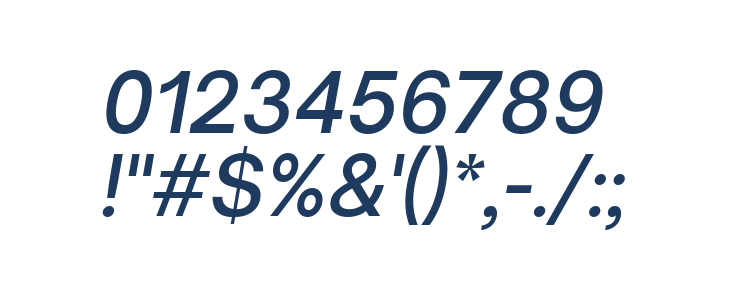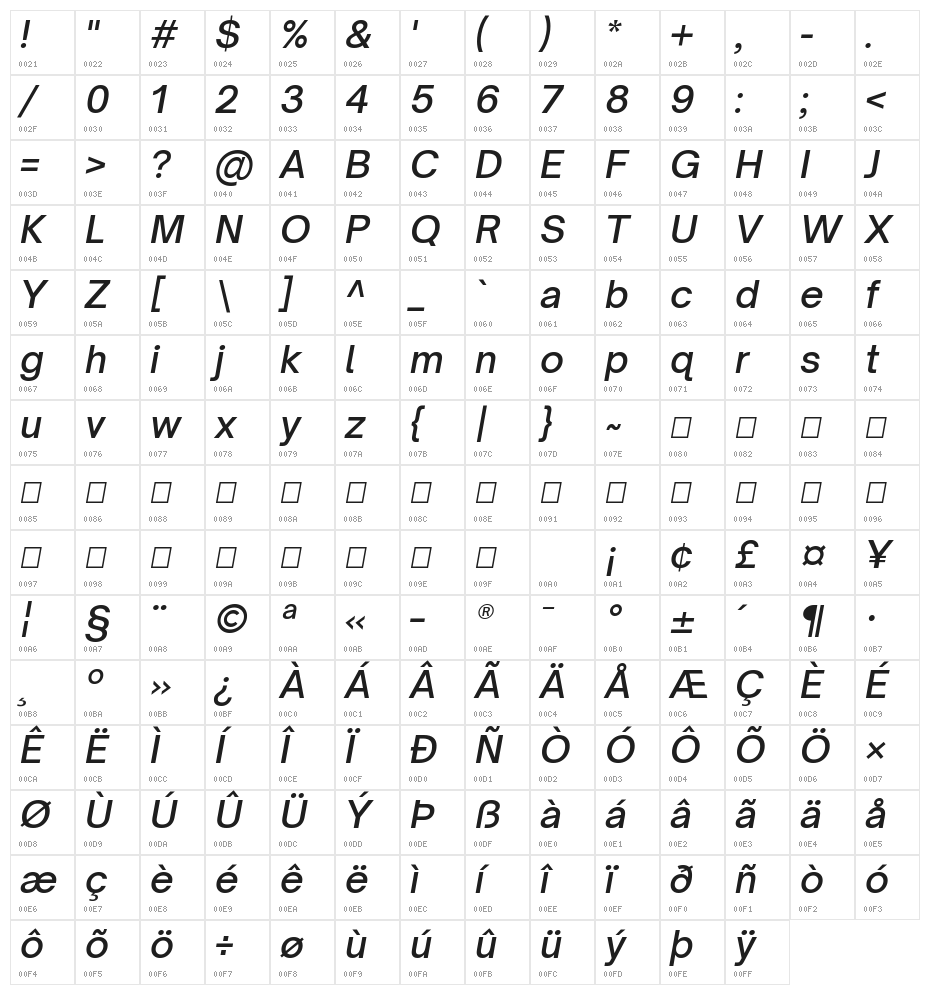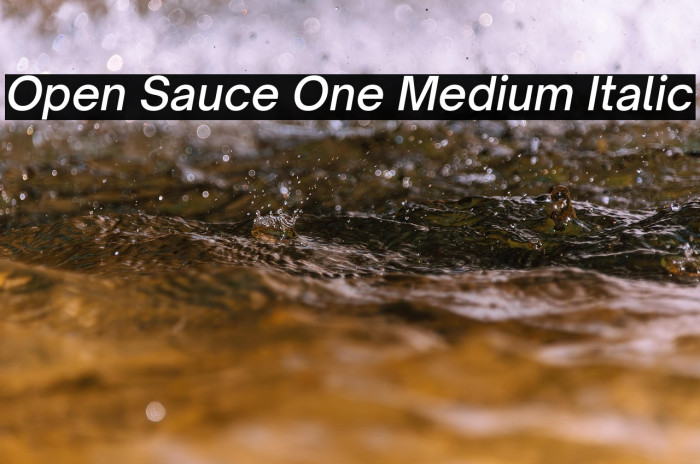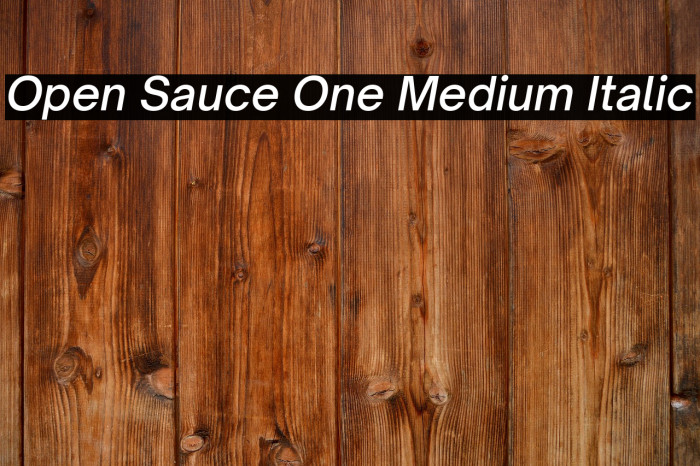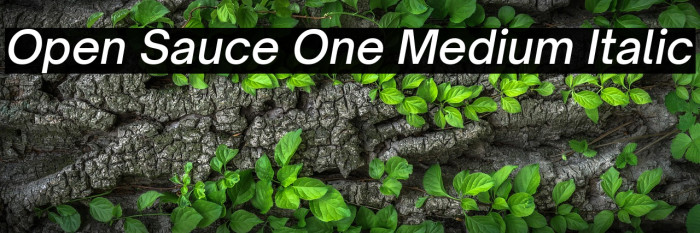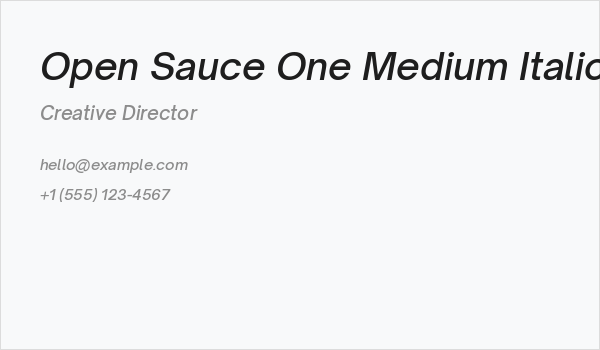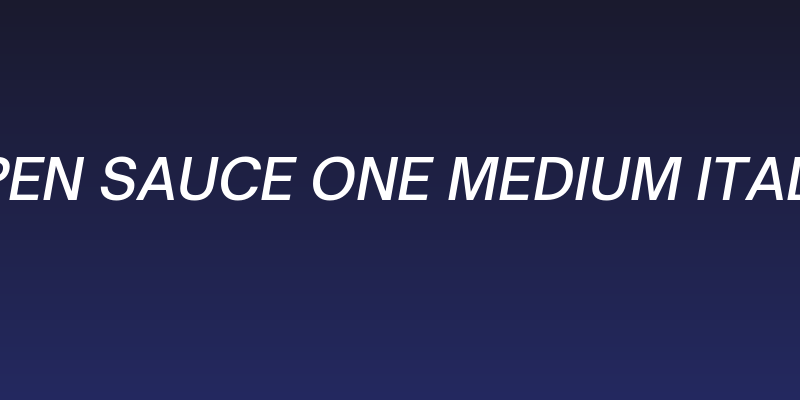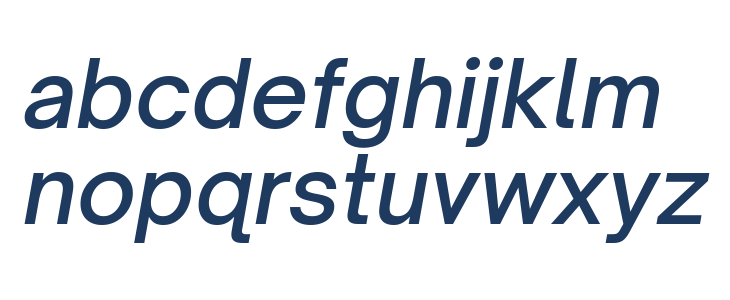
Open Sauce One Medium Italic Font
Open Sauce One Medium Italic Description
This font features a clean and modern sans-serif style with a medium weight, providing a balanced appearance that is both professional and approachable. The italicized form adds a dynamic and forward-leaning character, making it suitable for conveying emphasis without being overly dramatic. The characters are well-proportioned, with a slight slant that enhances readability while maintaining a sleek and streamlined look. The numerals and special characters are consistent with the overall design, ensuring uniformity across different uses. This font is versatile, making it ideal for a variety of applications where clarity and modernity are desired.